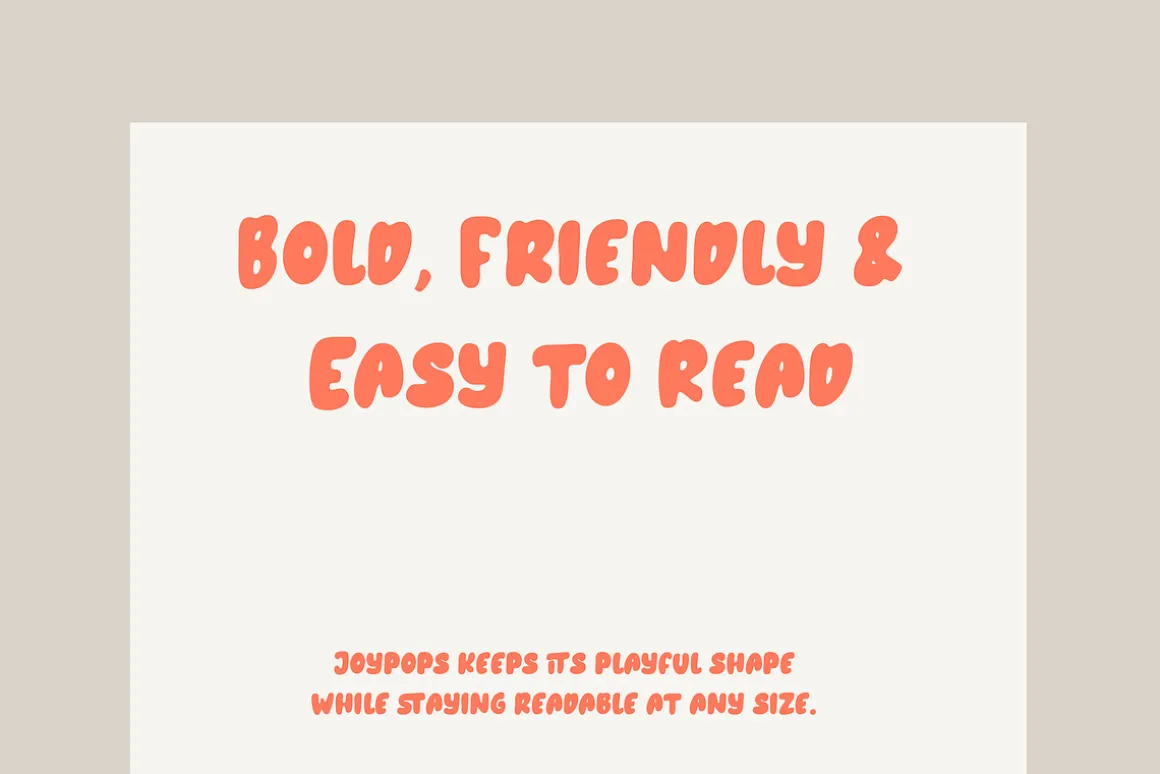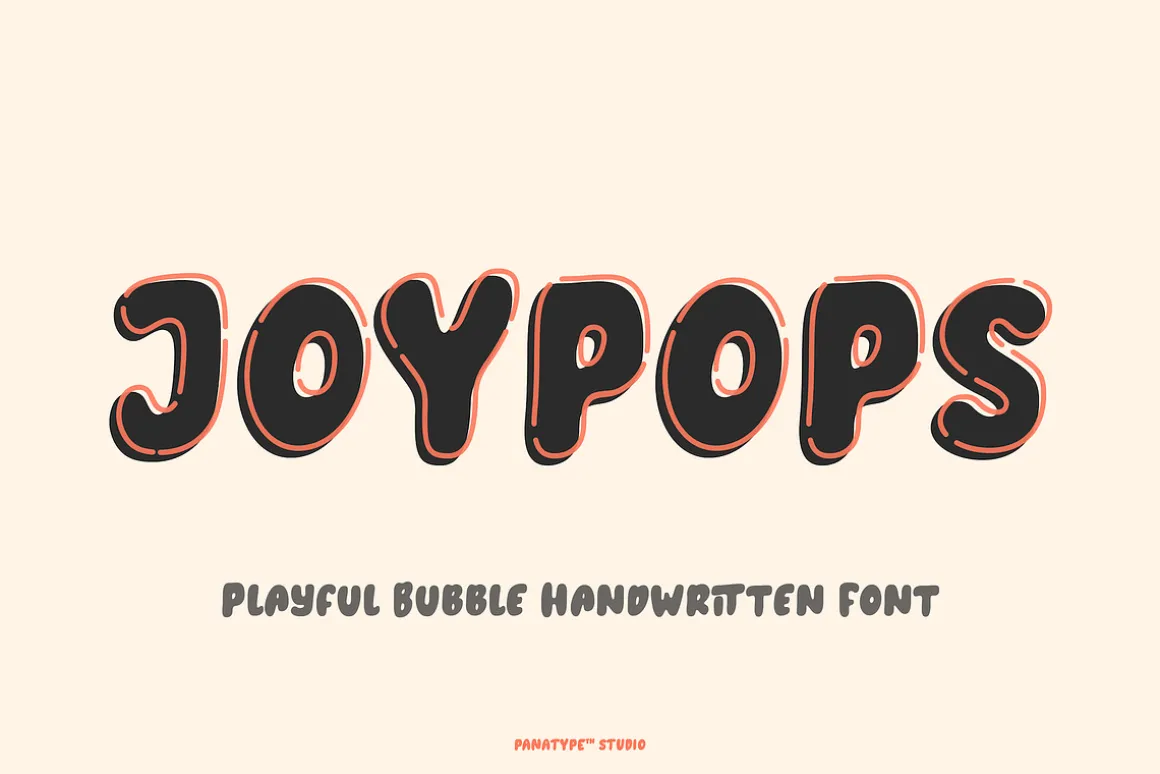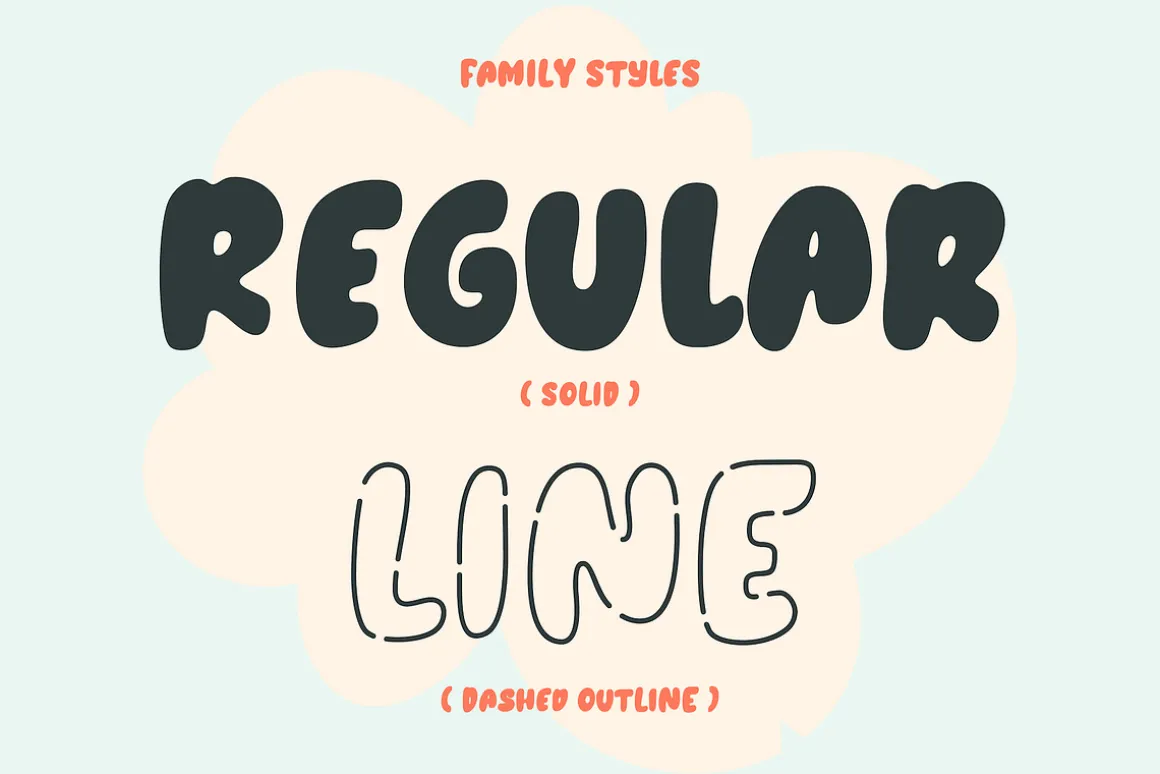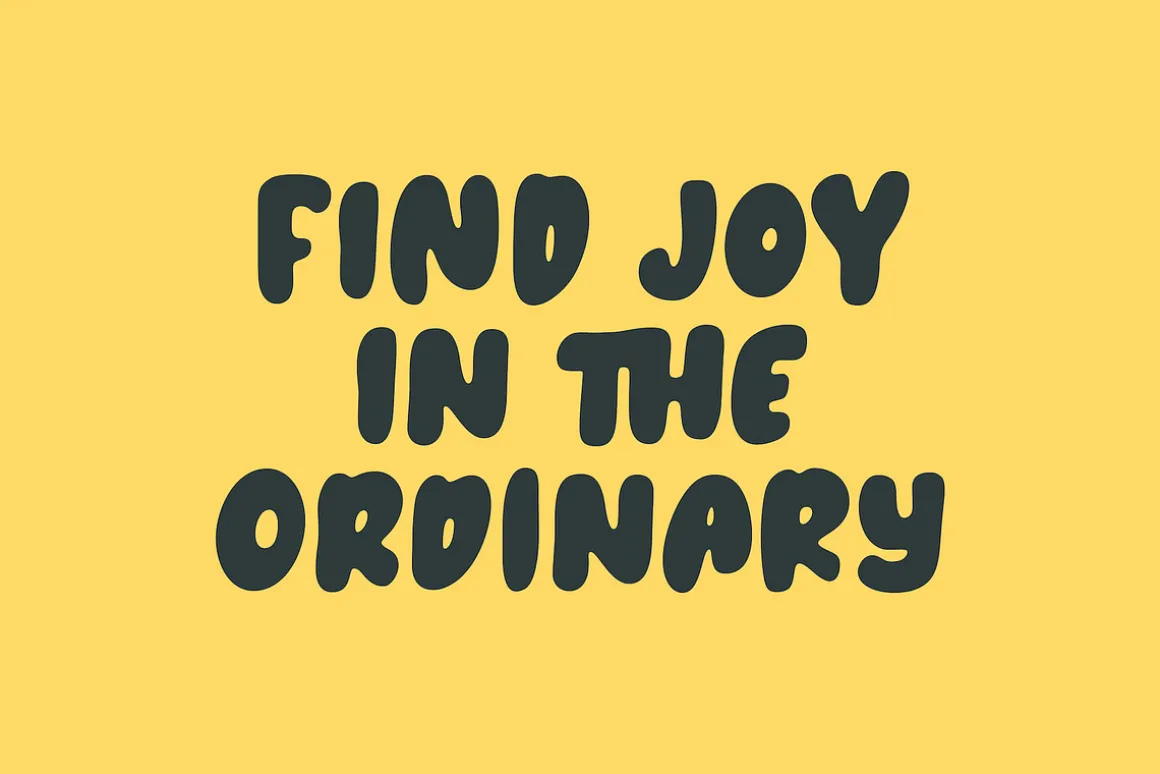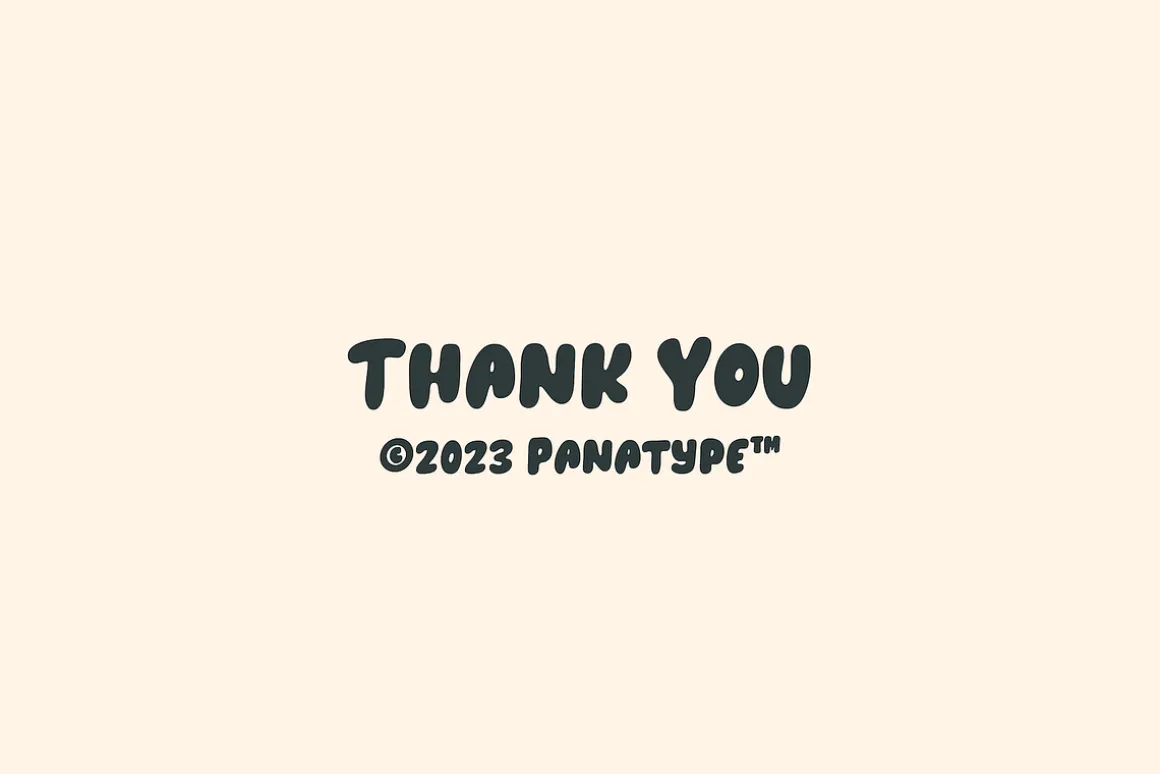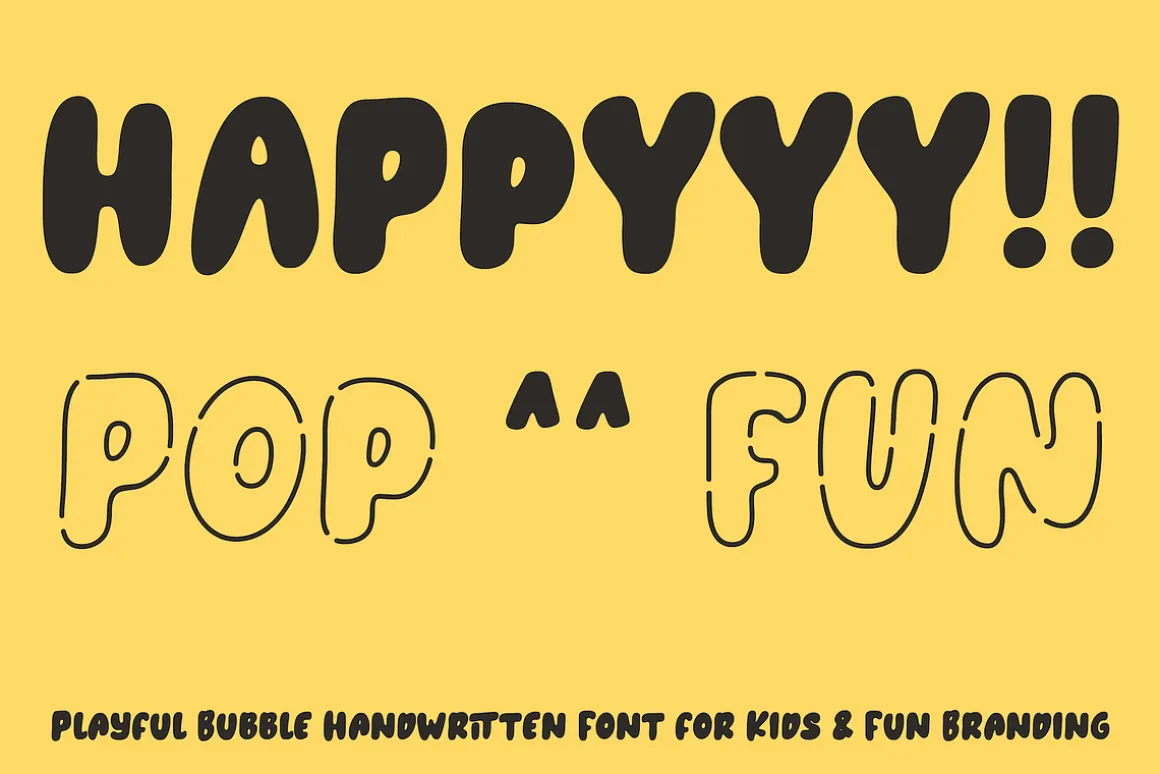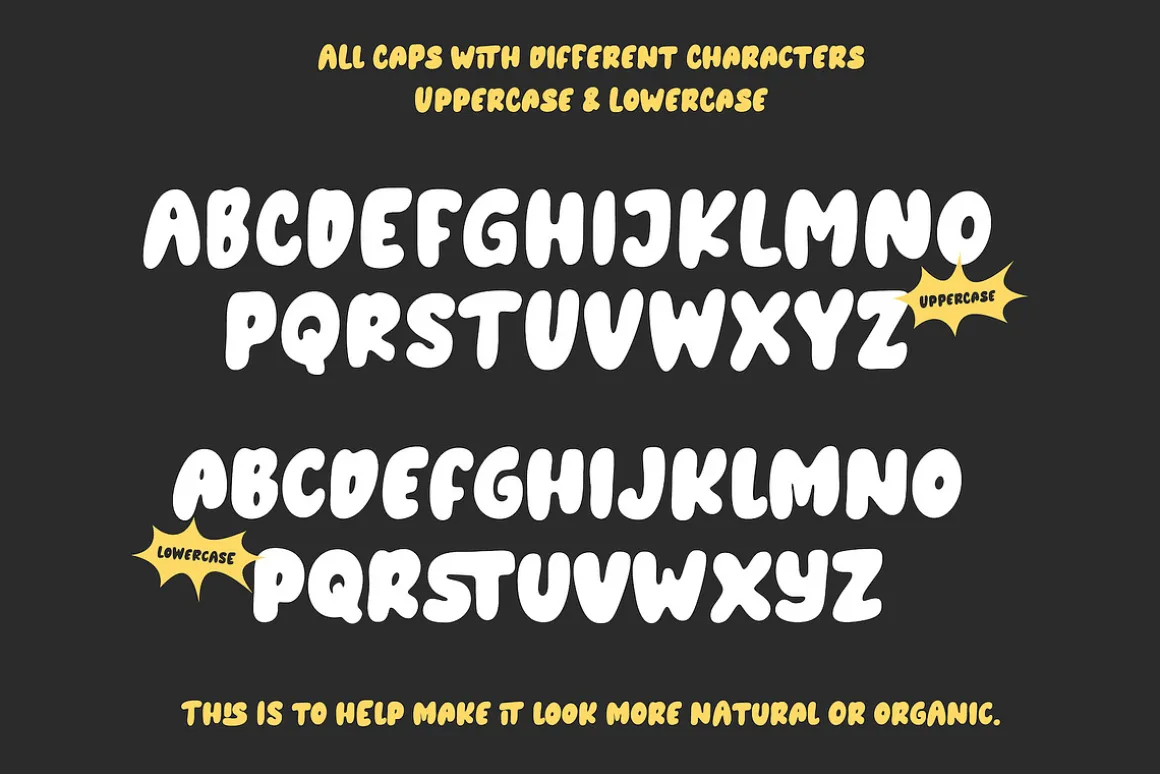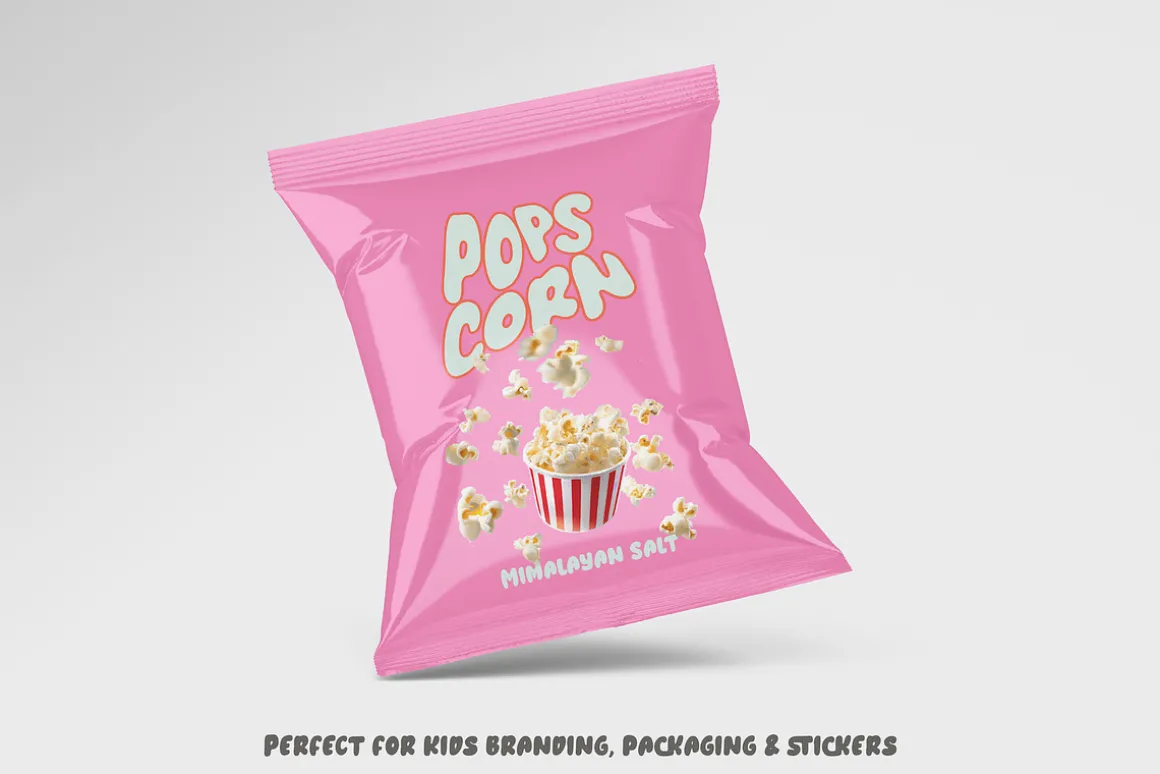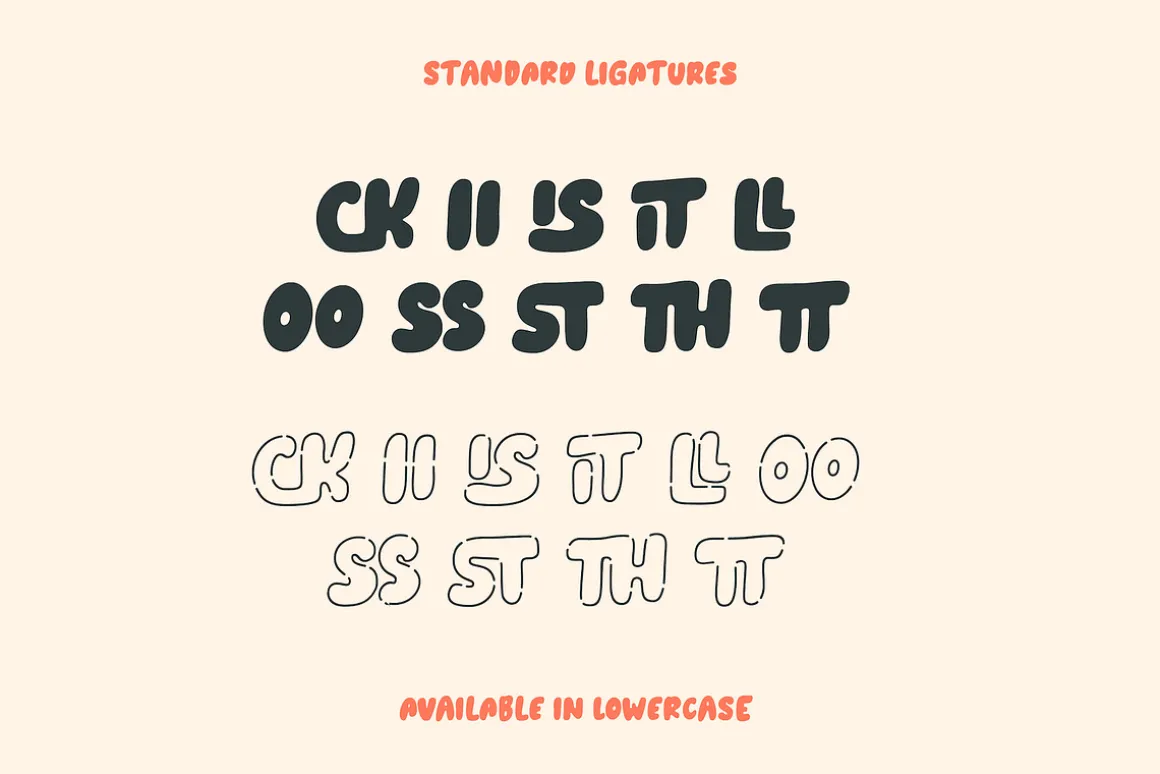
Joypops is a playful bubble handwritten font designed to bring cheerful personality and bold expression into your designs. Perfect for branding, packaging, children’s projects, posters, stickers, and social media visuals.
A cheerful bubble font for kids branding, packaging & joyful projects.